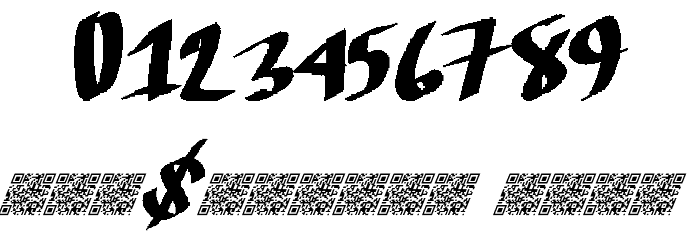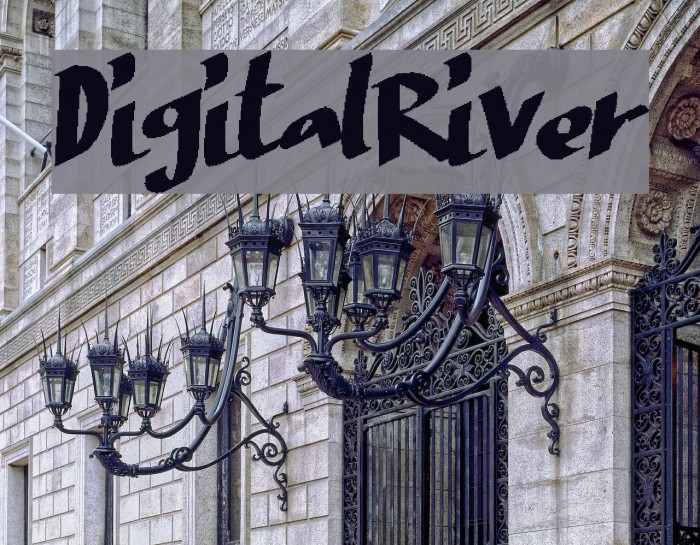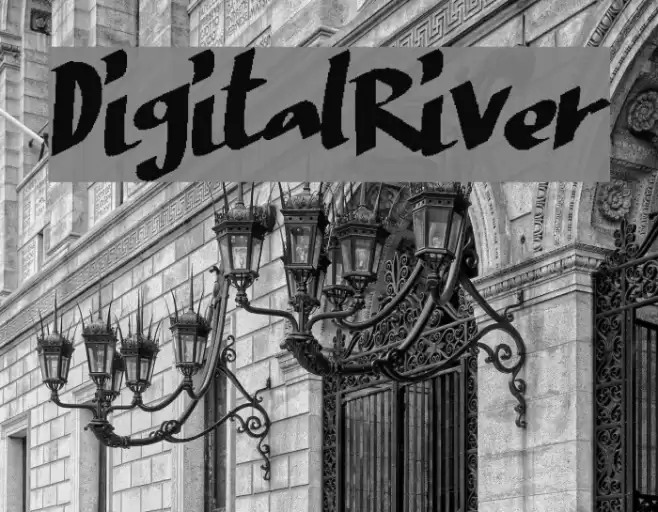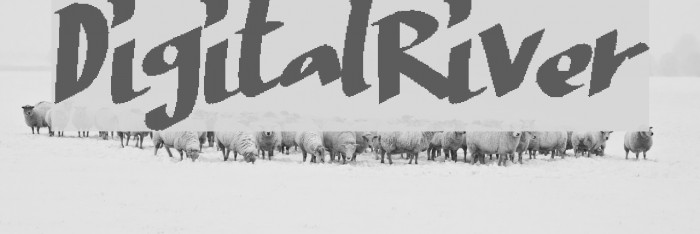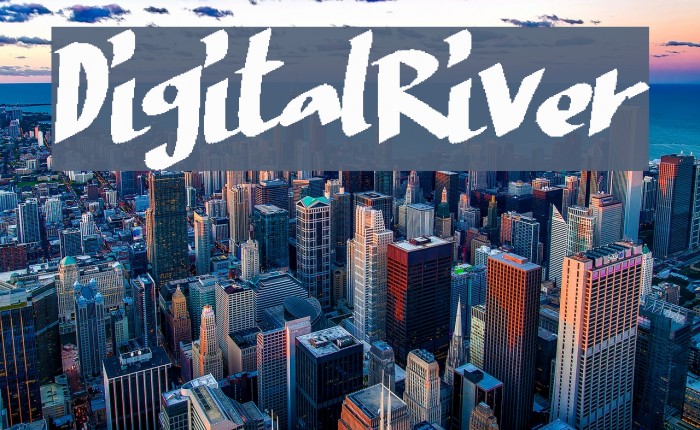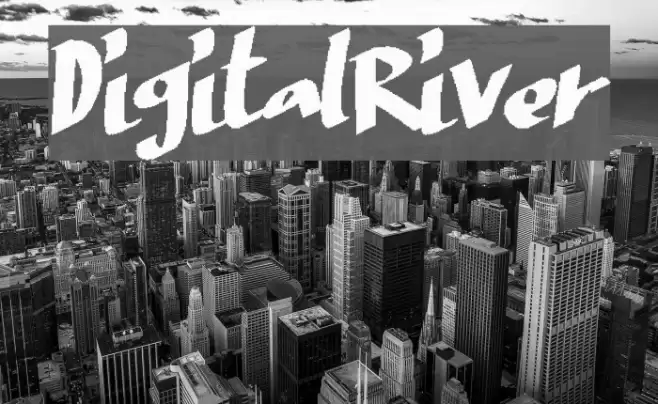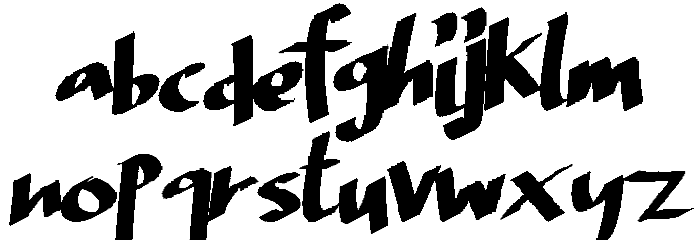
DigitalRiver Font
DigitalRiver Description
This font features a bold and dynamic style with a brush-like appearance, giving it an energetic and expressive character. The uppercase letters are robust and angular, while the lowercase letters maintain a consistent flow, enhancing readability despite their artistic flair. The numerals are distinct and maintain the same boldness, ensuring clarity. Special characters are creatively integrated, maintaining the overall aesthetic. The font's design suggests a sense of movement and creativity, making it suitable for projects that require a strong visual impact.
| Proposed Projects | Ideal for posters, branding, and creative projects that require a bold and artistic touch. |